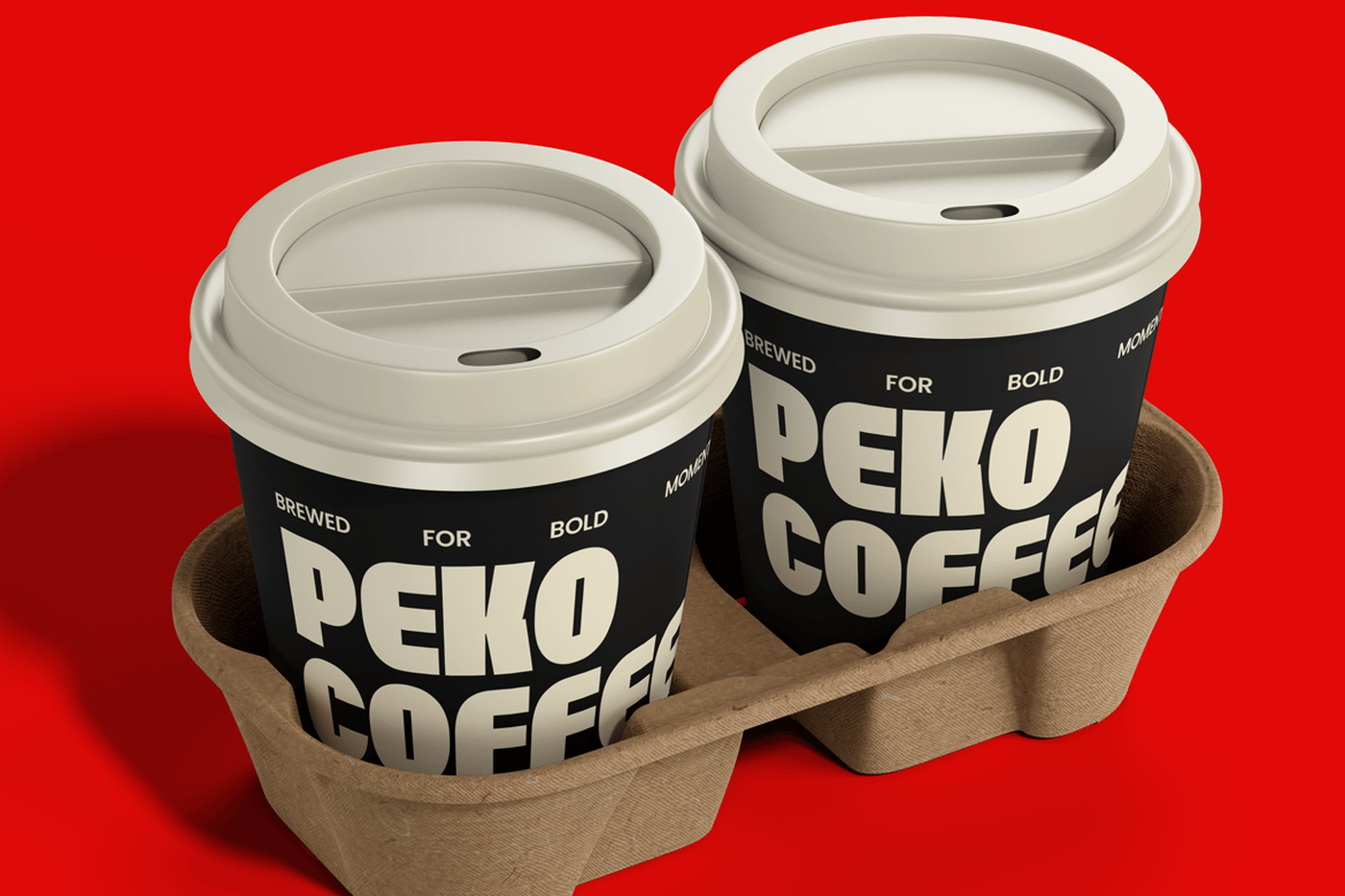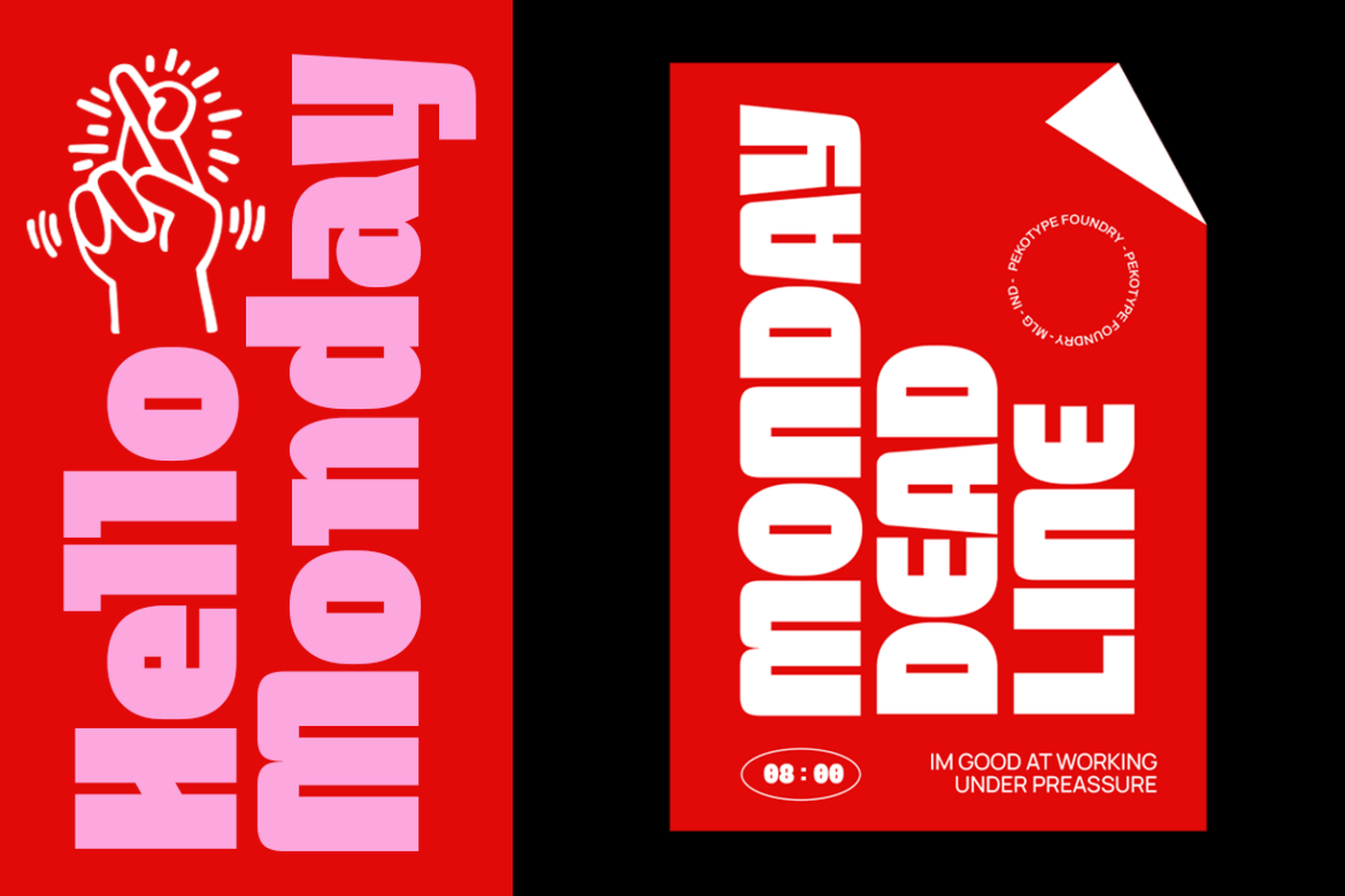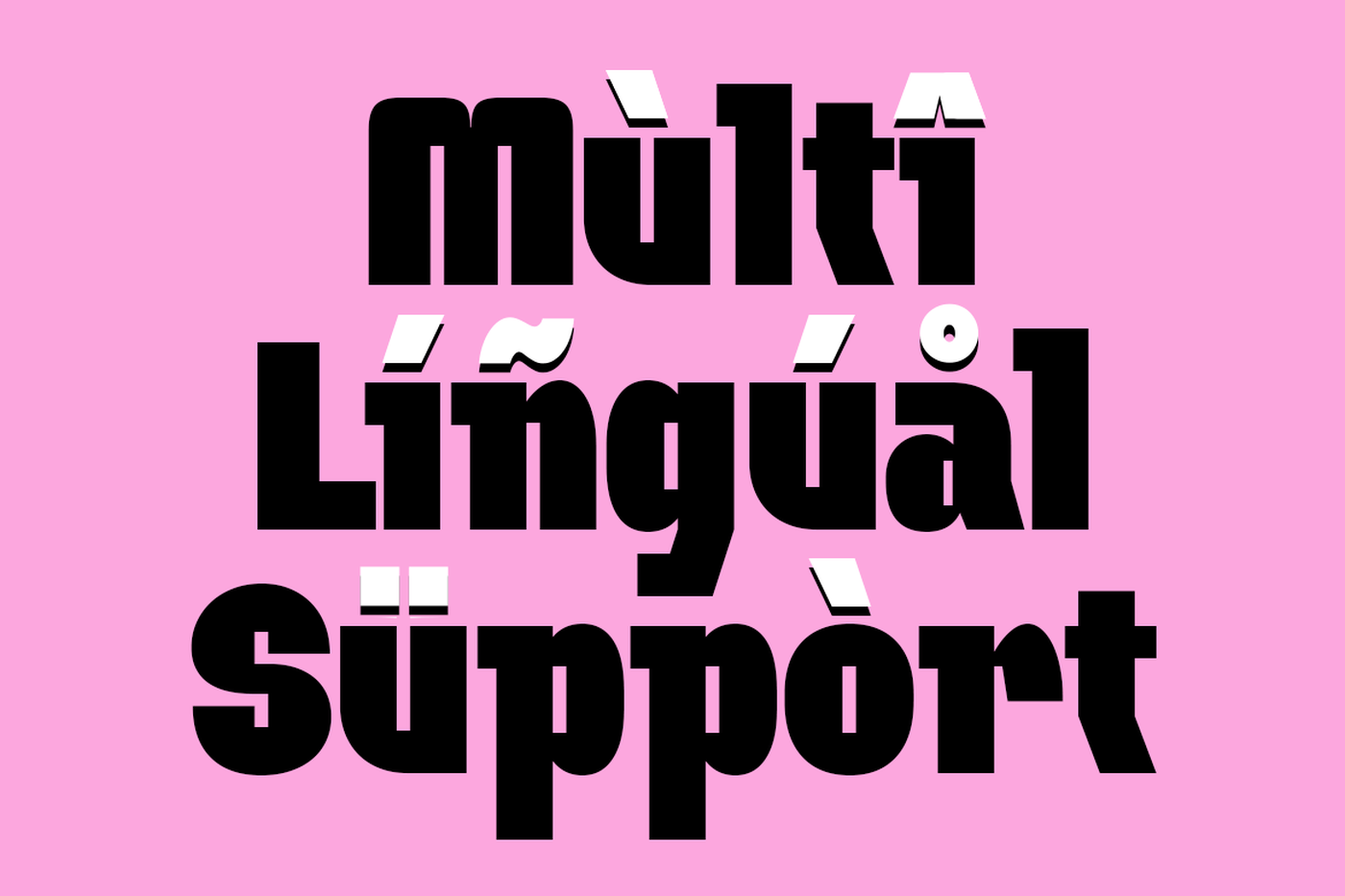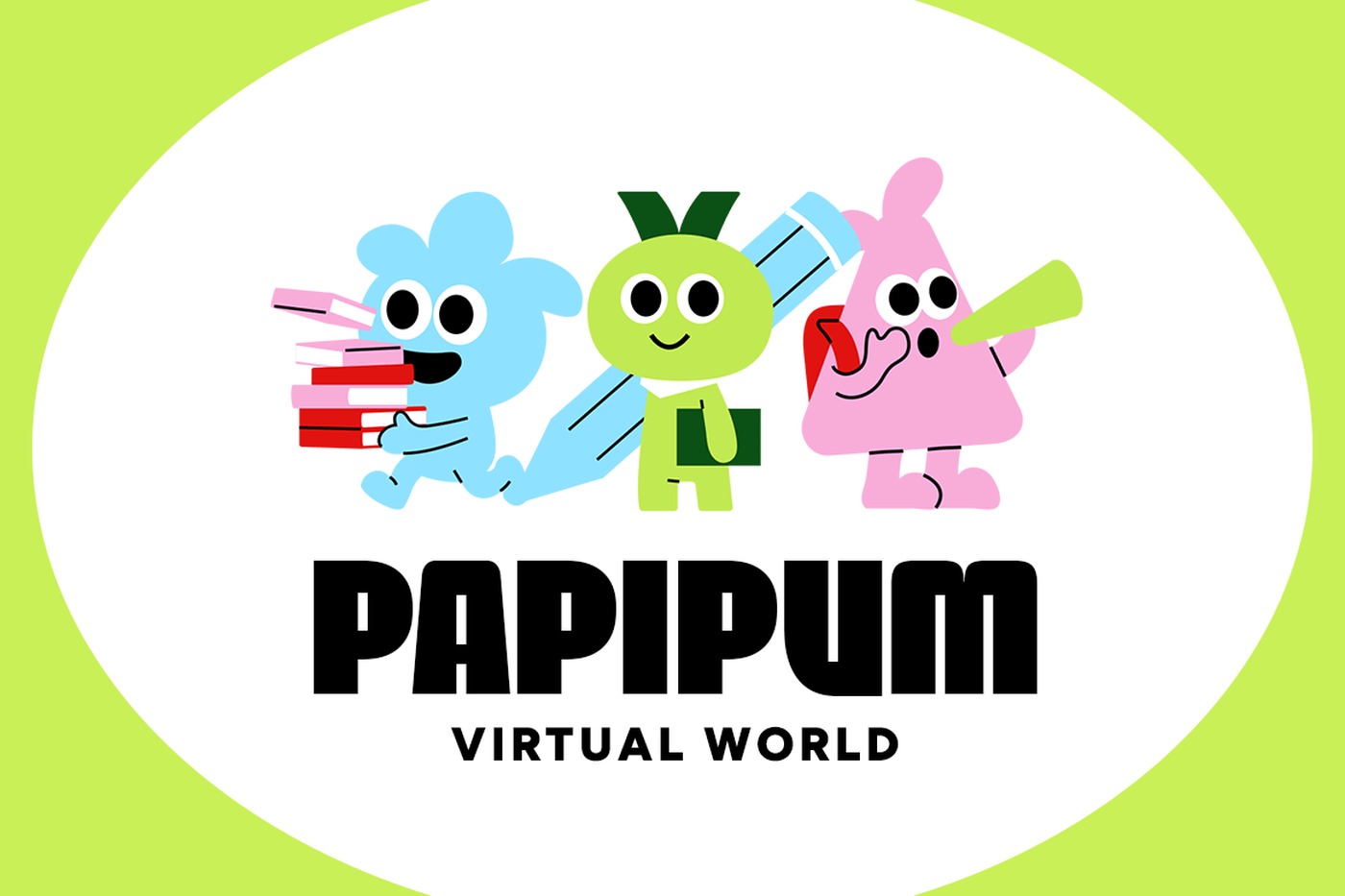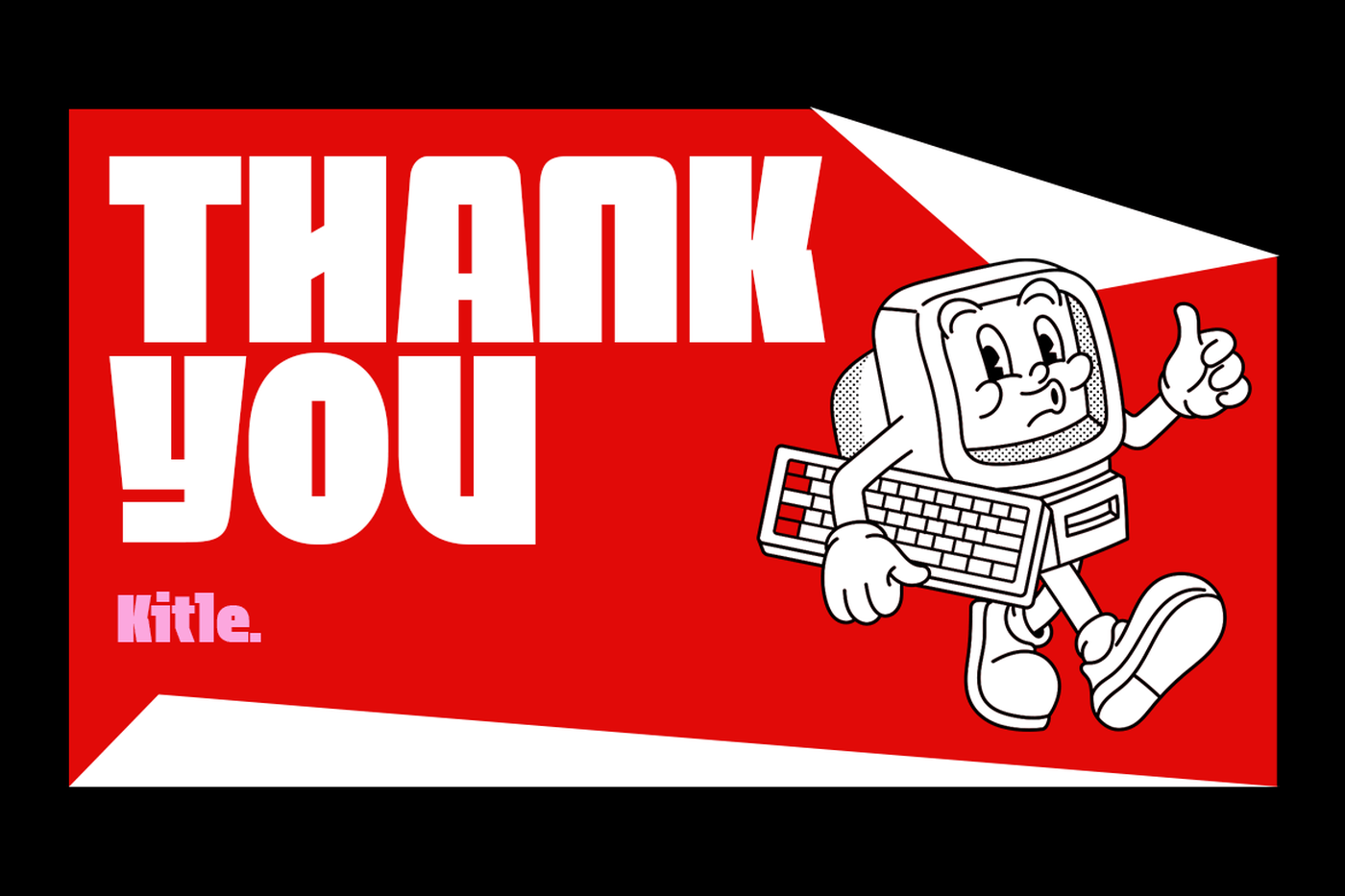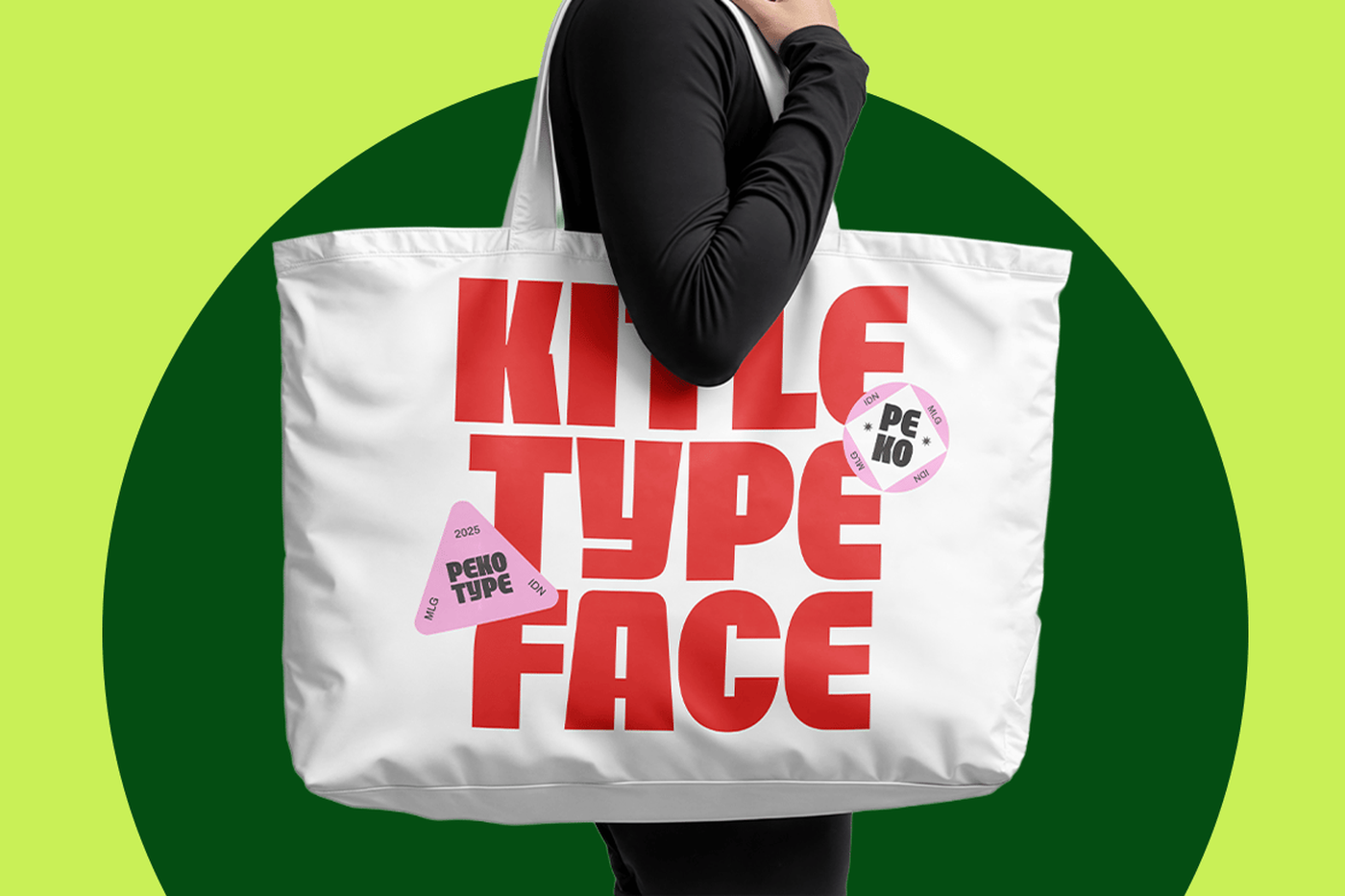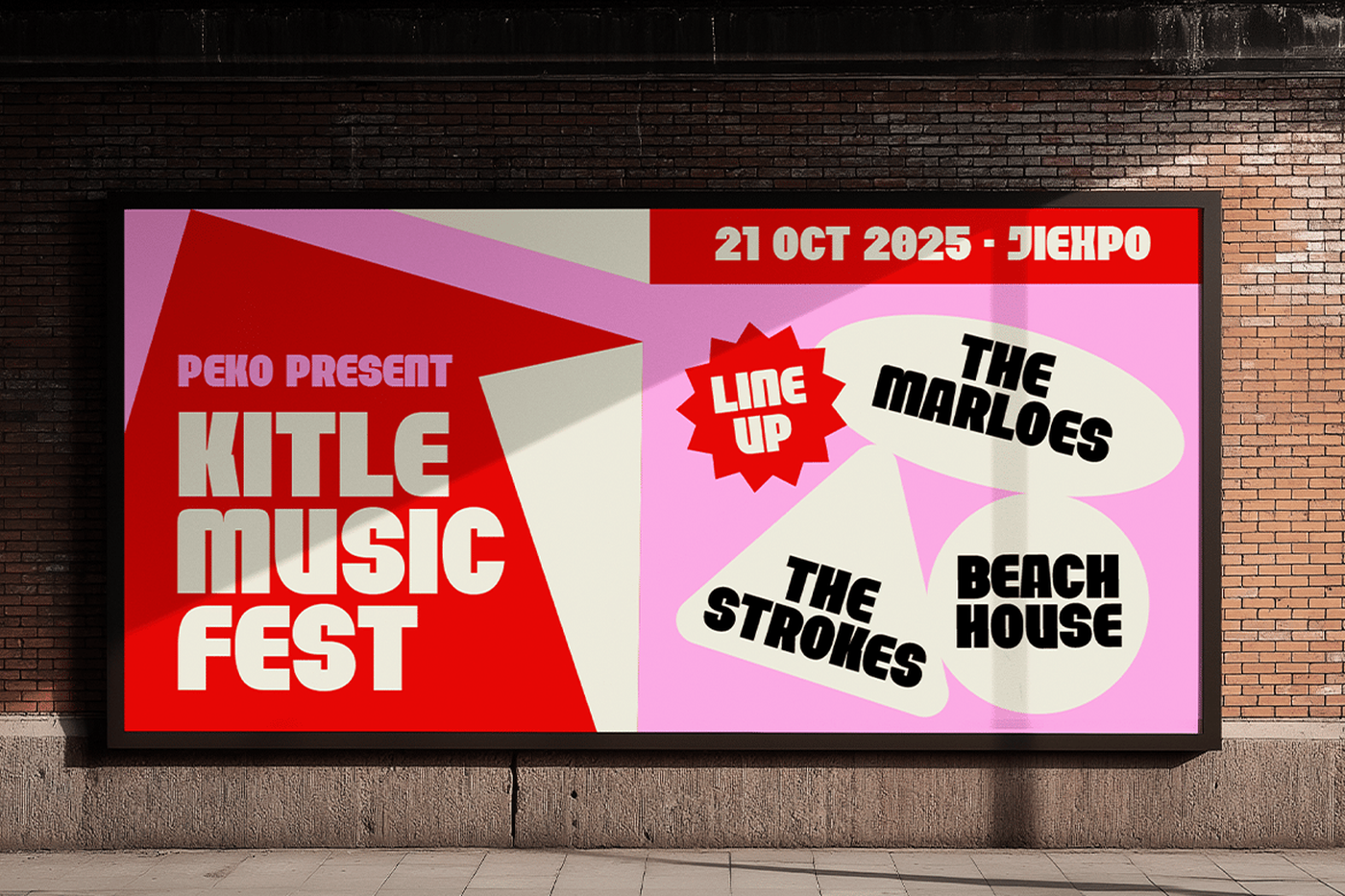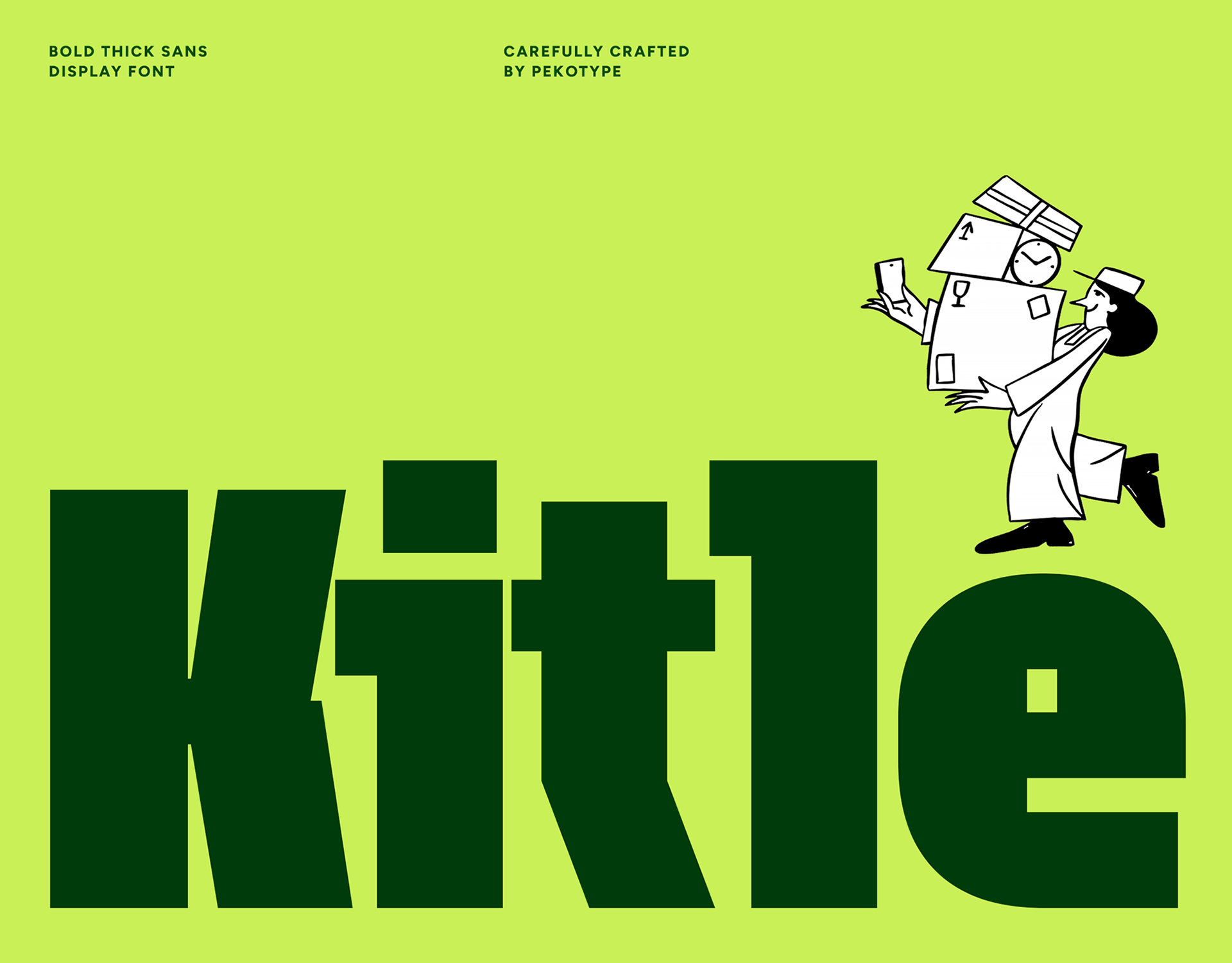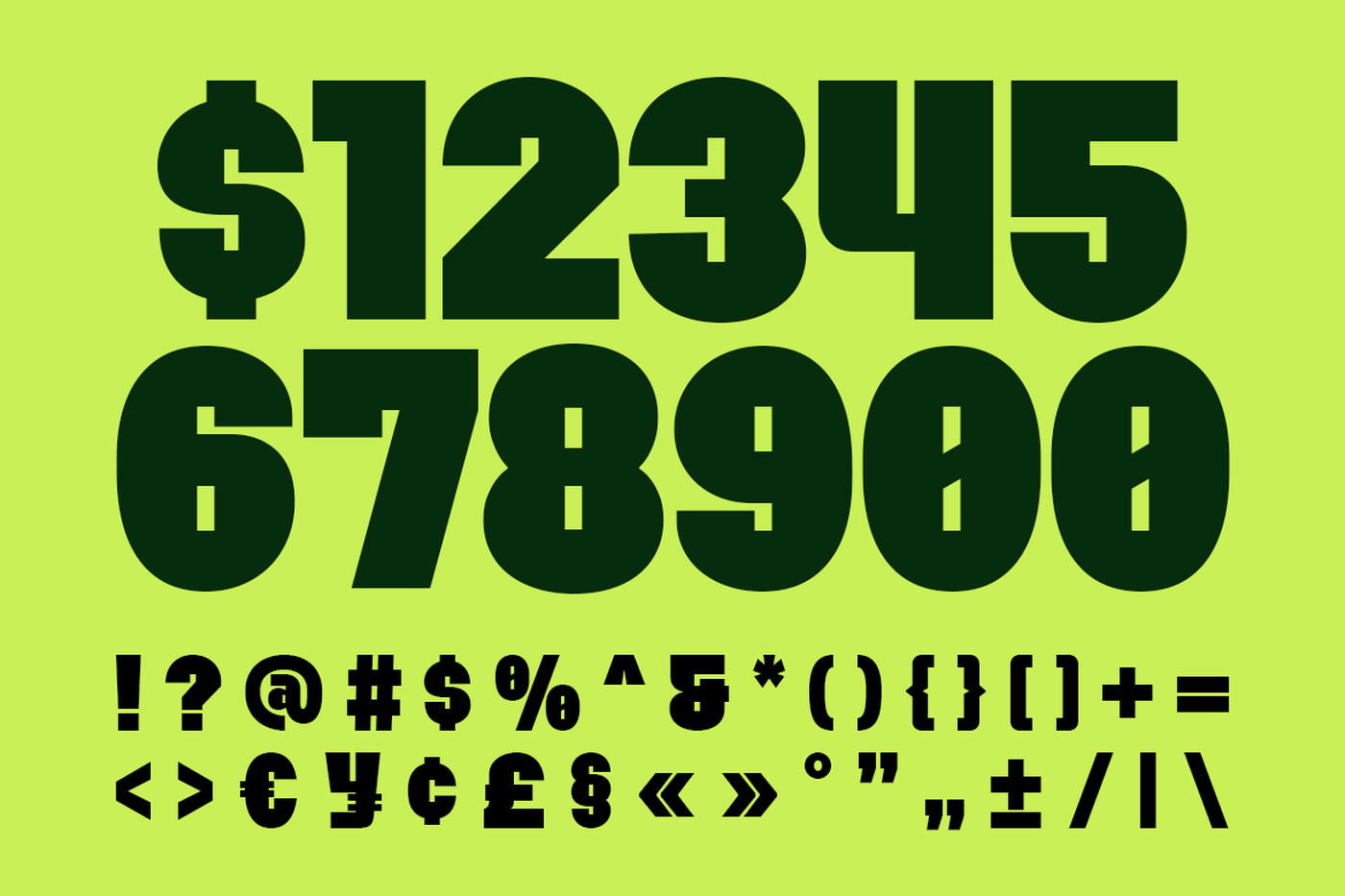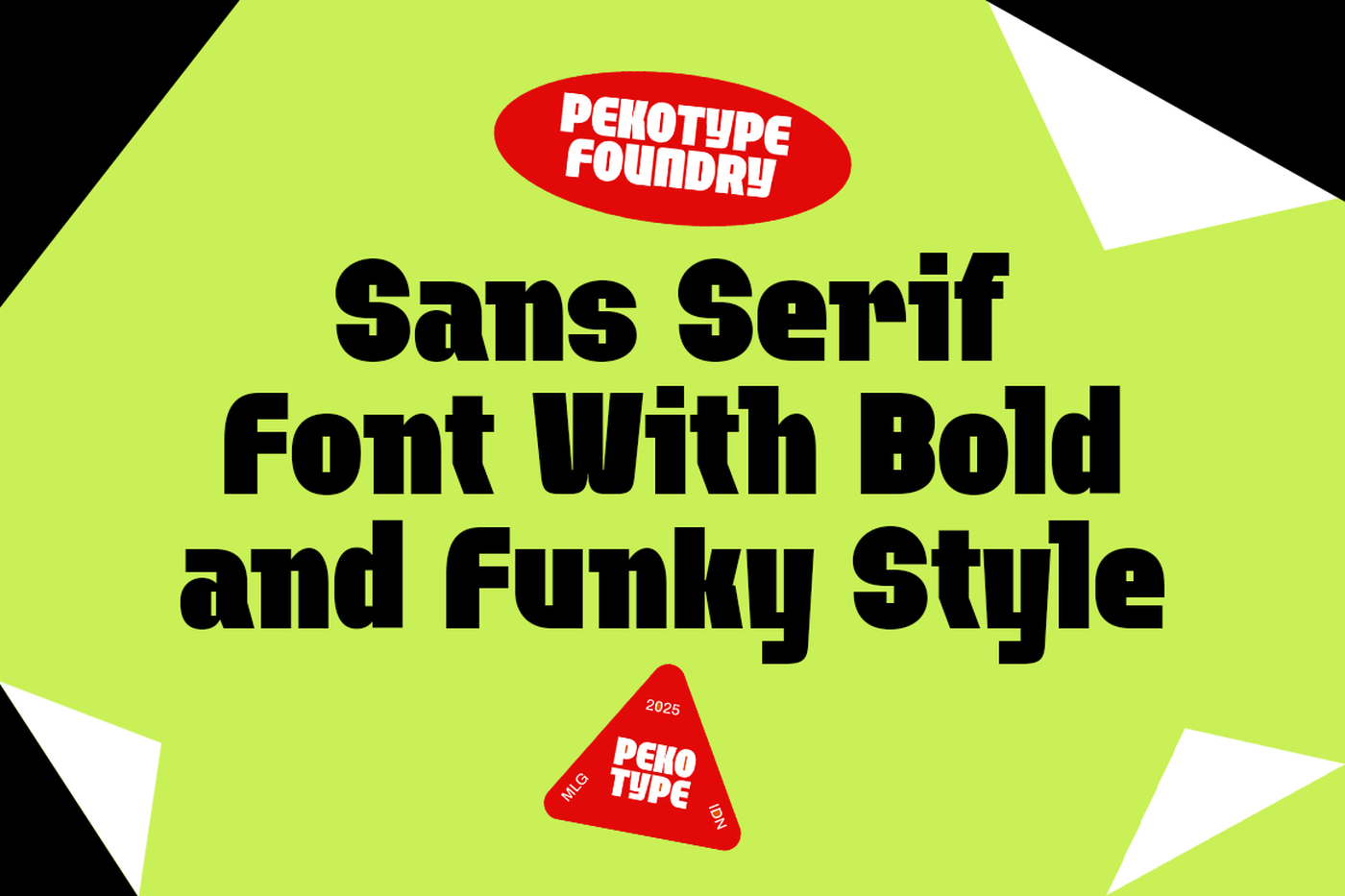
Kitle - Bold Funky Font
Say hello to Kitle, a bold sans serif font that brings a punch of funky attitude and playful personality to your designs! Crafted for those who love strong, confident typography, Kitle stands out with its thick letterforms, smooth edges, and quirky style. Perfect for branding, posters, packaging, logos, social media graphics, and promotional materials, Kitle delivers a modern and youthful vibe that grabs attention instantly. With uppercase and lowercase letters, plus multilingual support, this font gives you creative flexibility for any bold project.